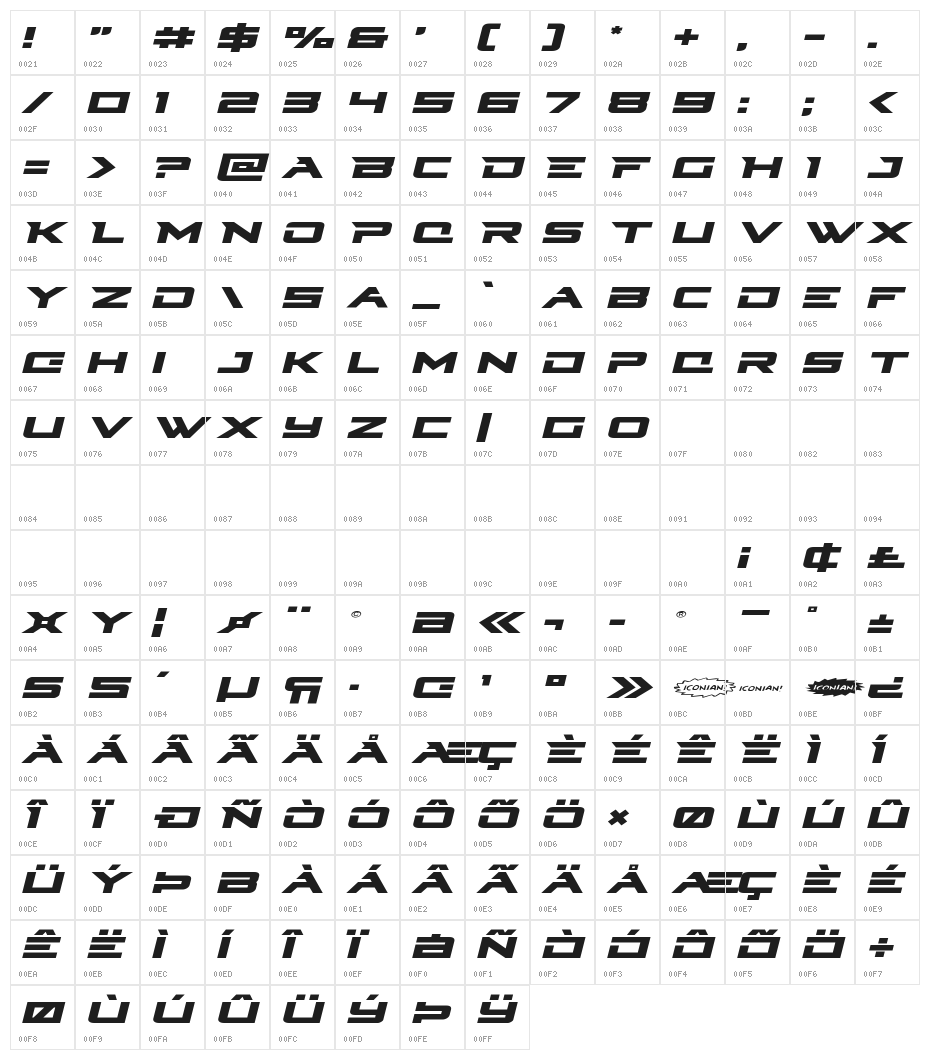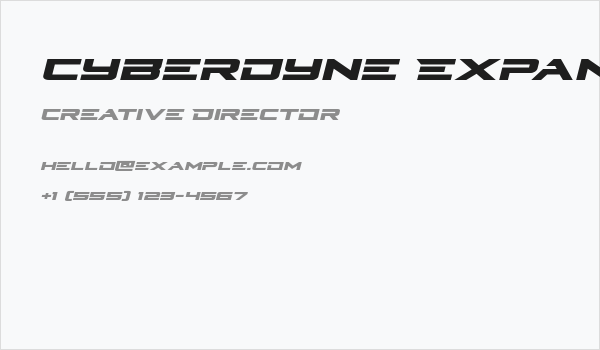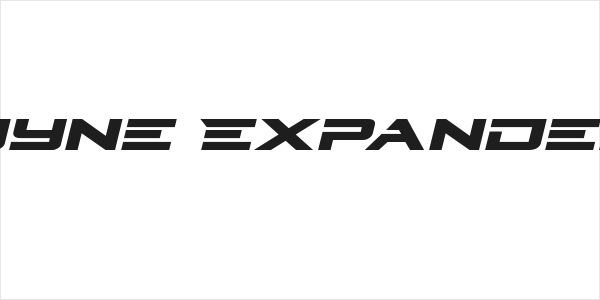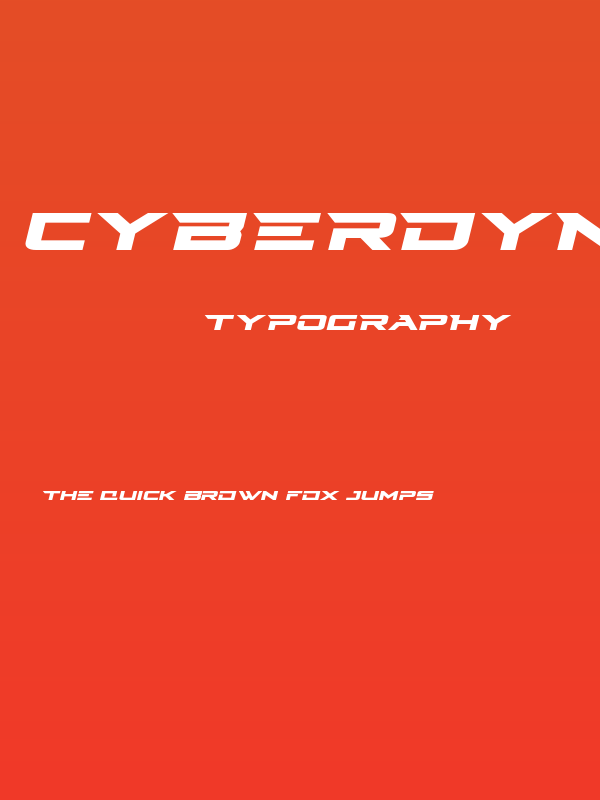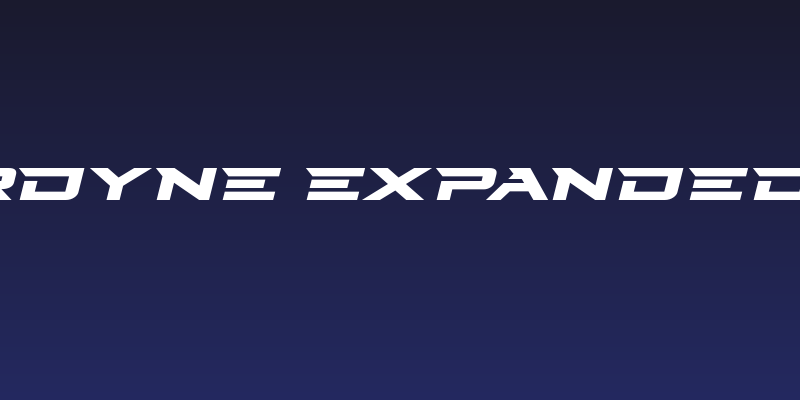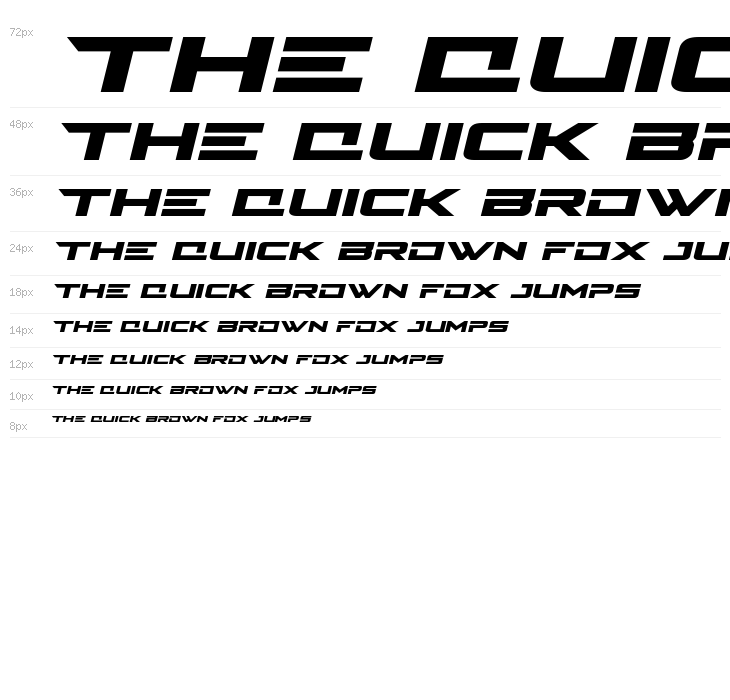
Cyberdyne Expanded Italic Font
Cyberdyne Expanded Italic Description
This font features a futuristic and dynamic design with a distinctly italicized slant, giving it a sense of motion and speed. The characters are bold and expanded, with sharp angles and a geometric structure that conveys a modern, tech-inspired aesthetic. The uppercase and lowercase letters maintain a consistent style, while the numerals and special characters complement the overall design. The font's expanded width and italic style make it ideal for projects that require a bold and impactful visual presence.
| Proposed Projects | Ideal for technology branding, sci-fi movie posters, video game titles, and futuristic-themed designs. |